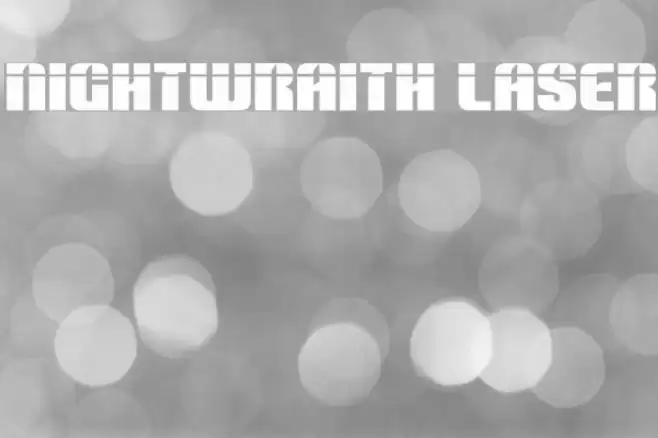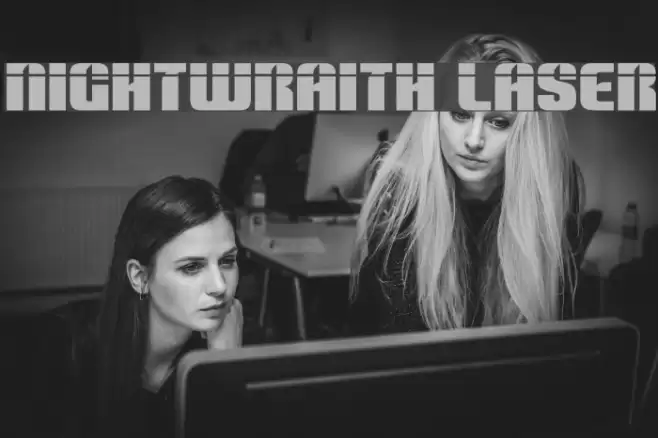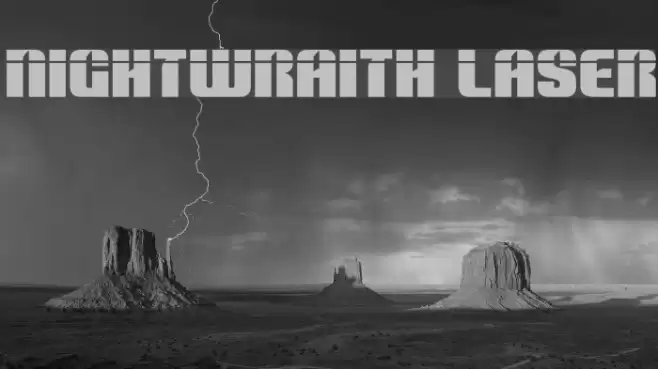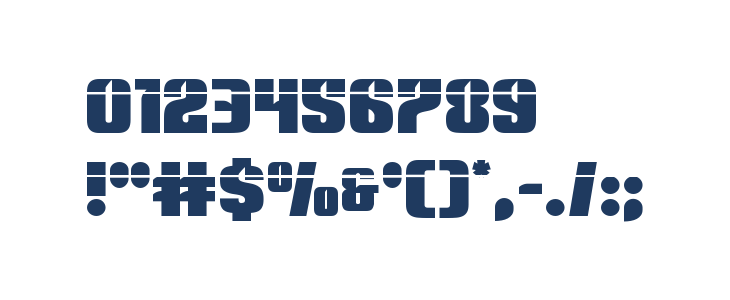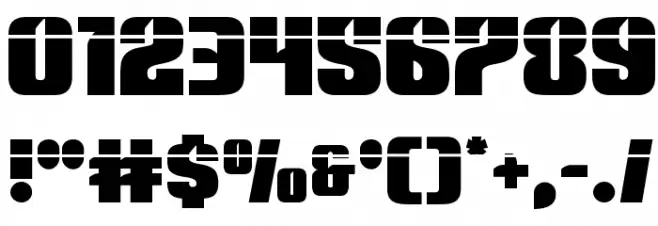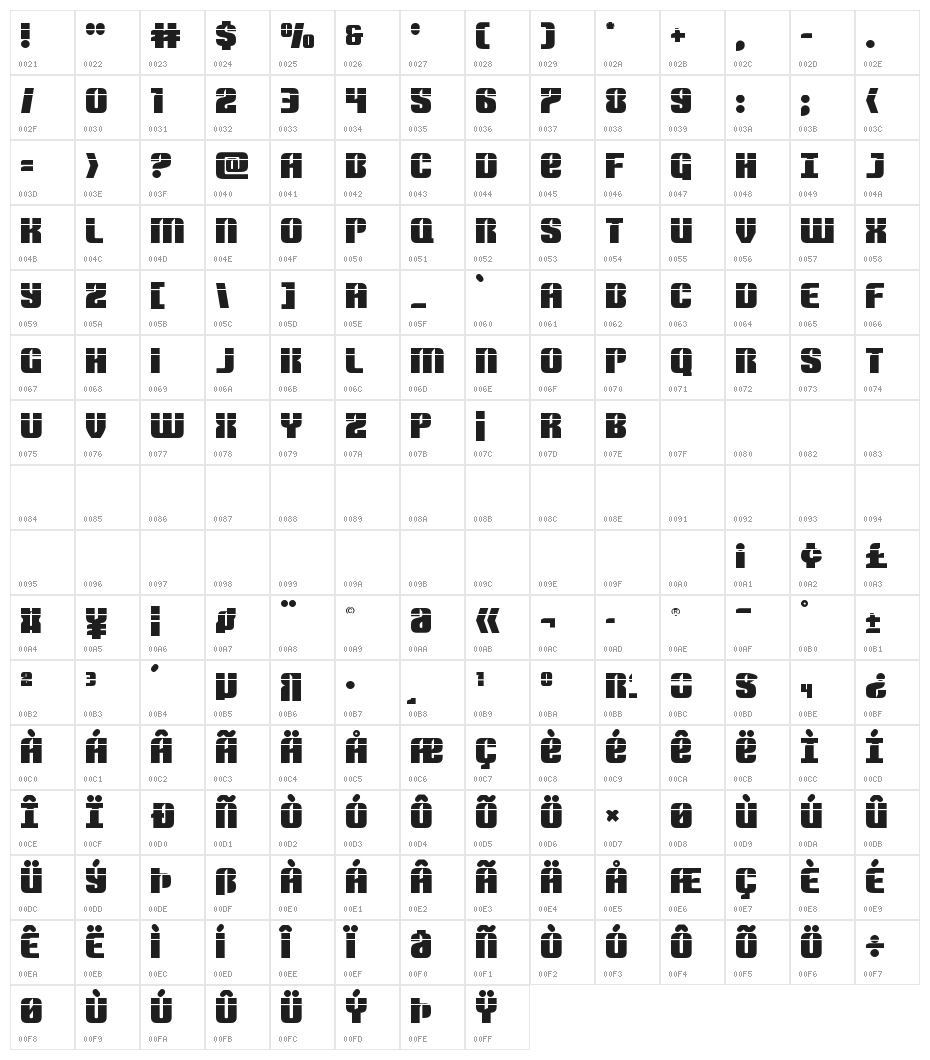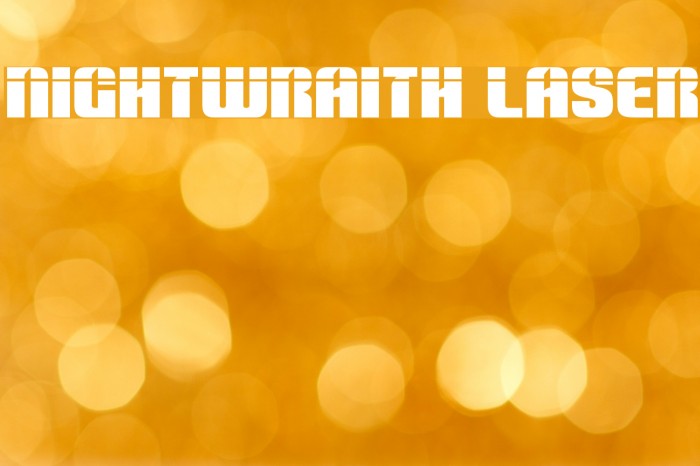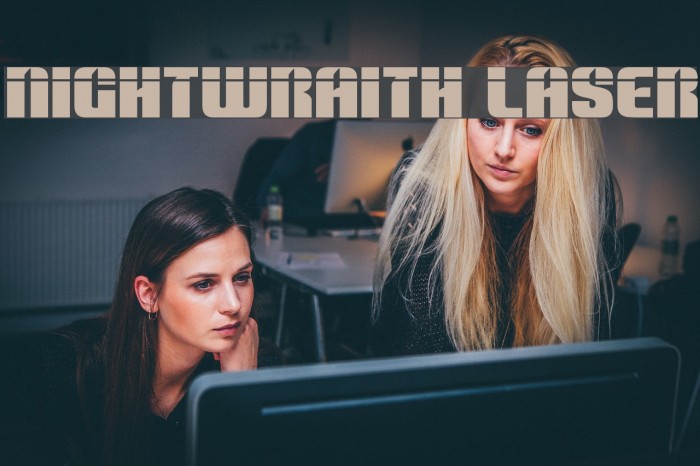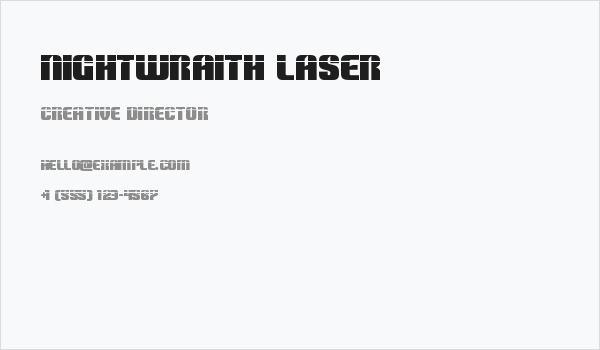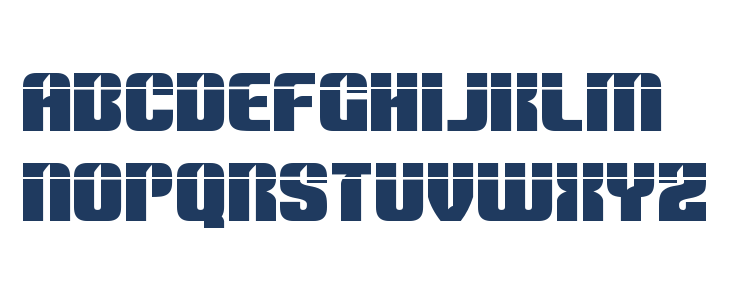
Nightwraith Laser Font
Nightwraith Laser Description
This font exhibits a bold, futuristic design with a strong geometric influence. The characters are blocky and wide, featuring sharp angles and a consistent thickness throughout. The uppercase and lowercase letters maintain a uniform height, creating a cohesive appearance. Numbers and special characters follow the same stylistic approach, ensuring a seamless integration across different text elements. The font's distinct style makes it ideal for projects that require a modern and impactful visual presence.
A bold, geometric font with a futuristic and cohesive design from Uncategorized fonts.
- Proposed Projects: Ideal for sci-fi themed designs, video game titles, technology branding, and modern posters.
- Width: Expanded